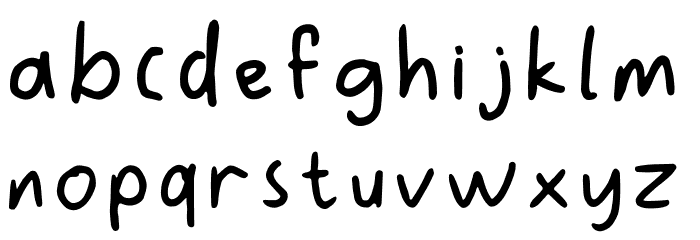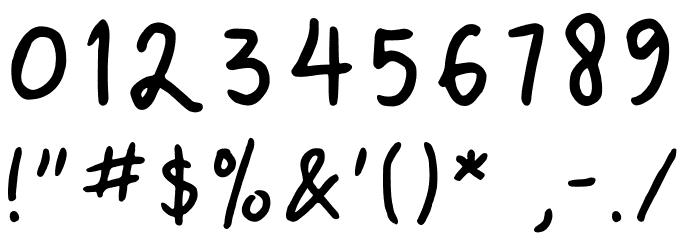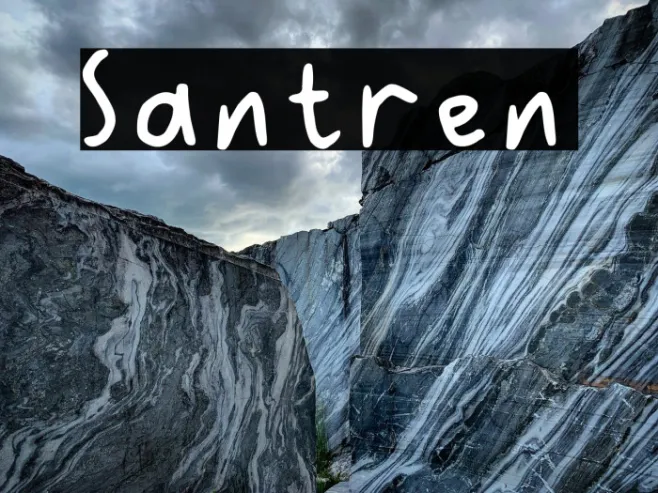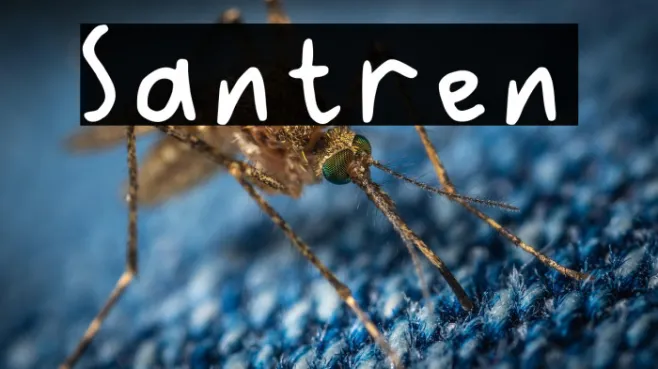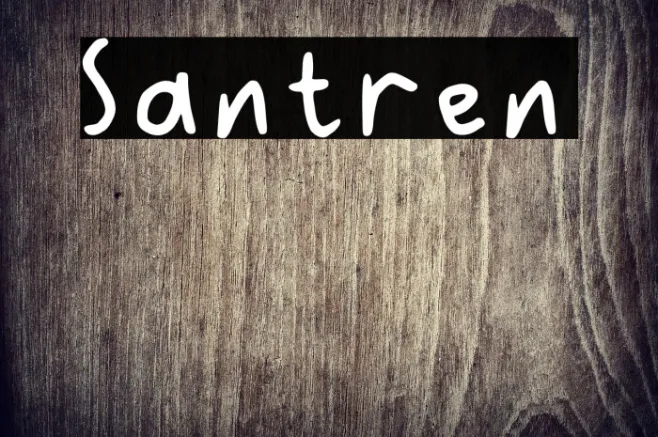
Santren Font
This font exudes a playful and casual handwritten style, characterized by its irregular strokes and slightly uneven baseline. The letters are bold and rounded, giving a friendly and approachable feel. The uppercase and lowercase letters maintain a consistent style, with a slight slant that adds to the informal appearance. The numerals and special characters follow the same design ethos, ensuring uniformity across all glyphs. This font is perfect for projects that require a personal touch, such as greeting cards, invitations, or casual branding. Its legibility and charm make it suitable for both digital and print media.
A playful, handwritten font with bold, rounded characters and a casual style.
- Proposed Projects: Ideal for greeting cards, invitations, casual branding, and personal projects.
- Overall Style: Casual
- Use Case: Headlines, Logos, Informal Text